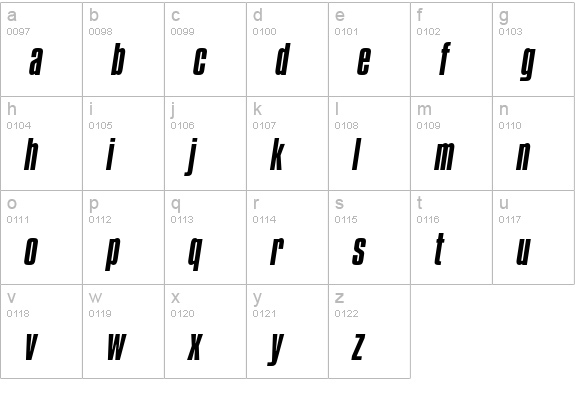
Compacta Italic is a distinctive, italic variant in the Compacta typeface family \xE2\x80\x94 well suited to design and typography projects.
Compacta Italic is a sleek and modern typeface that exudes elegance and sophistication. Its slanted design adds a dynamic flair to any text, making it perfect for adding a touch of style to your projects. The italicized characters of Compacta Italic create a sense of movement and flow, making it ideal for headlines, titles, and branding materials. This versatile font is free to download at FontsMarket.com, allowing you to effortlessly incorporate it into your designs without any cost. Whether you're working on a website, print materials, or other creative projects, Compacta Italic will add a professional and polished look to your work. Don't miss out on the opportunity to enhance your designs with this stunning font - download Compacta Italic for free today at FontsMarket.com.